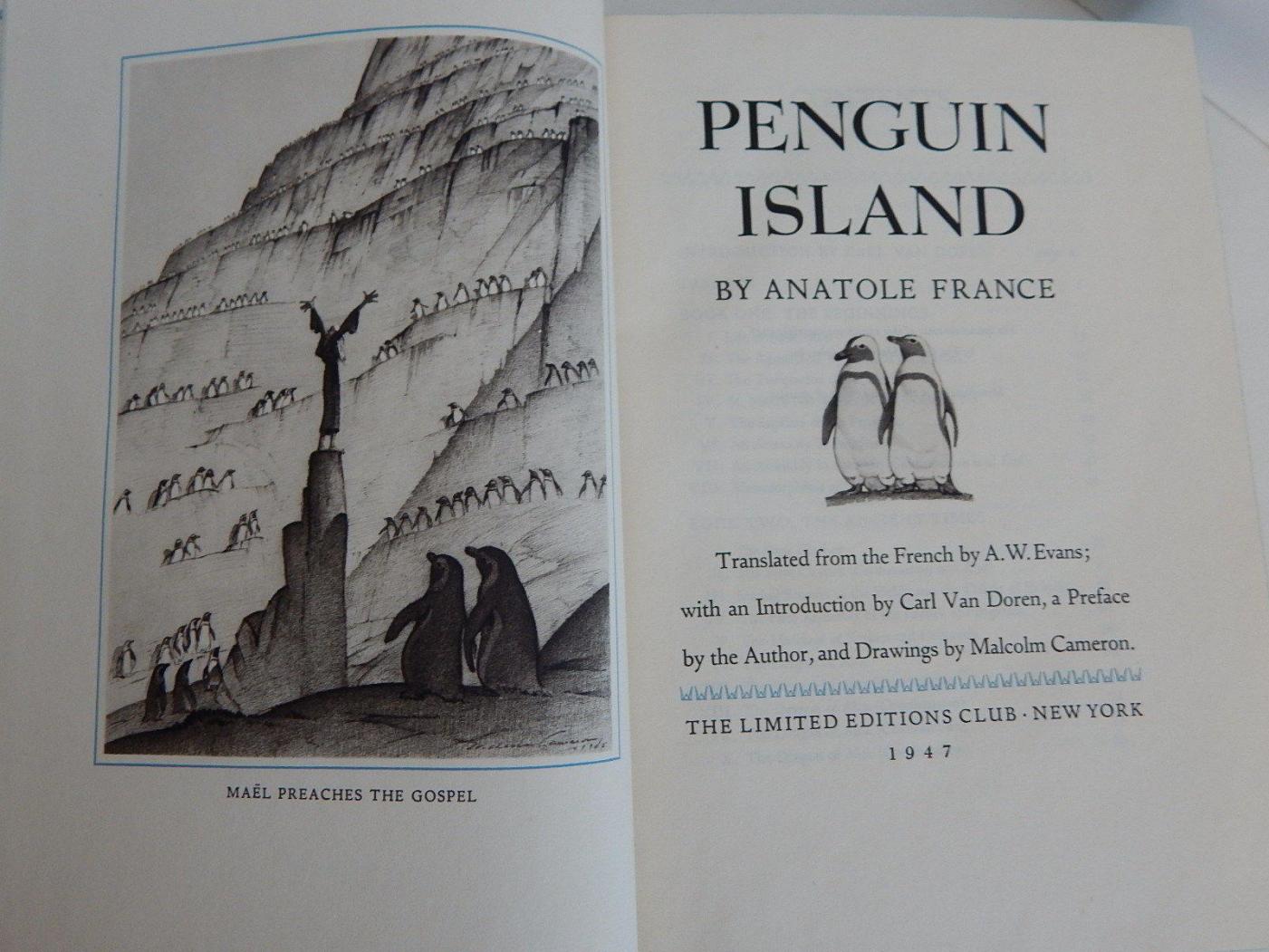
Penguin Island font
Ralf your exactly correct - Lucian was designed by Lucian Bernhard in 1932 and originally released by Bauer.
It looks like Perpetua in the text itself. The U has a side stem.
Nope, not Perpetua, but somewhat similar.
There was no bold or bold italic with this design. Any suggestions for bold/bold italic?
Are you talking about Emerson?
Emerson has been digitized under that name and as Spiral, but only in Roman, Italic, and Small Caps weights (Spiral) plus Display Roman and Display Italic (Emerson).
If you need Bold and Bold Italic, I’d pick a different face. Sabon has similar bones, but not the same details.
Right, that's my question: what other face in bold/bold italic would be suitable?